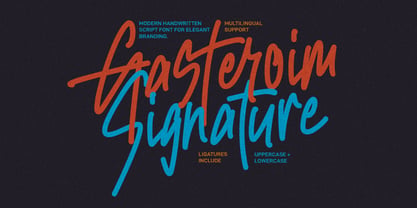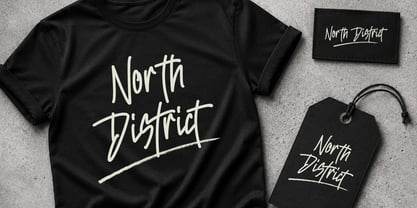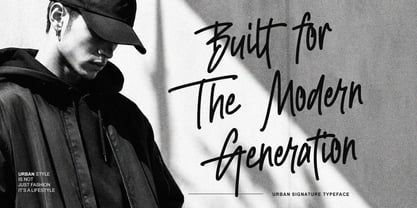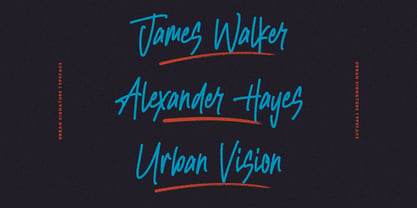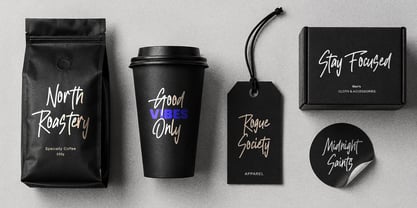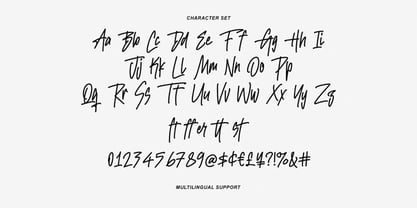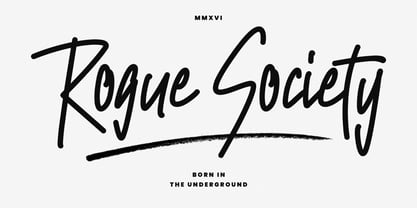
Gasteroim
by Maulana Creative
The Gasteroim Font Family was designed by Gilang Maulana and published by Maulana Creative. Gasteroim contains 1 styles. More about this family
Gasteroim Signature is a modern handwritten script font designed with expressive strokes and contemporary character shapes. Featuring quick, fluid letterforms combined with distinctive ligatures, this typeface delivers a bold, energetic look suitable for logos, package design, quotes, modern branding assets, and promotional graphics.
Equipped with uppercase and lowercase sets, numerals, punctuation, ligatures, and broad multilingual support, Gasteroim Signature adapts seamlessly across digital media and physical branding applications. Its natural hand-drawn aesthetic adds authentic personality to creative concepts requiring a dynamic, stylish visual identity.
Designers: Gilang Maulana
Foundry: Maulana Creative